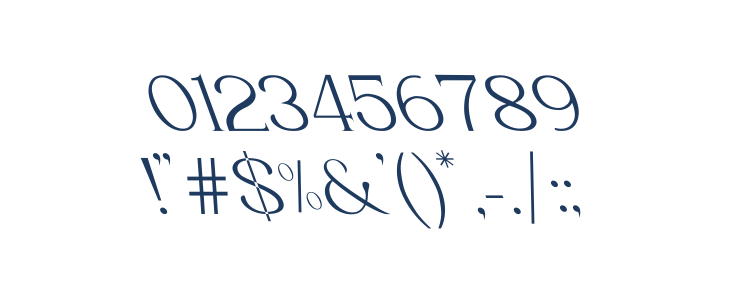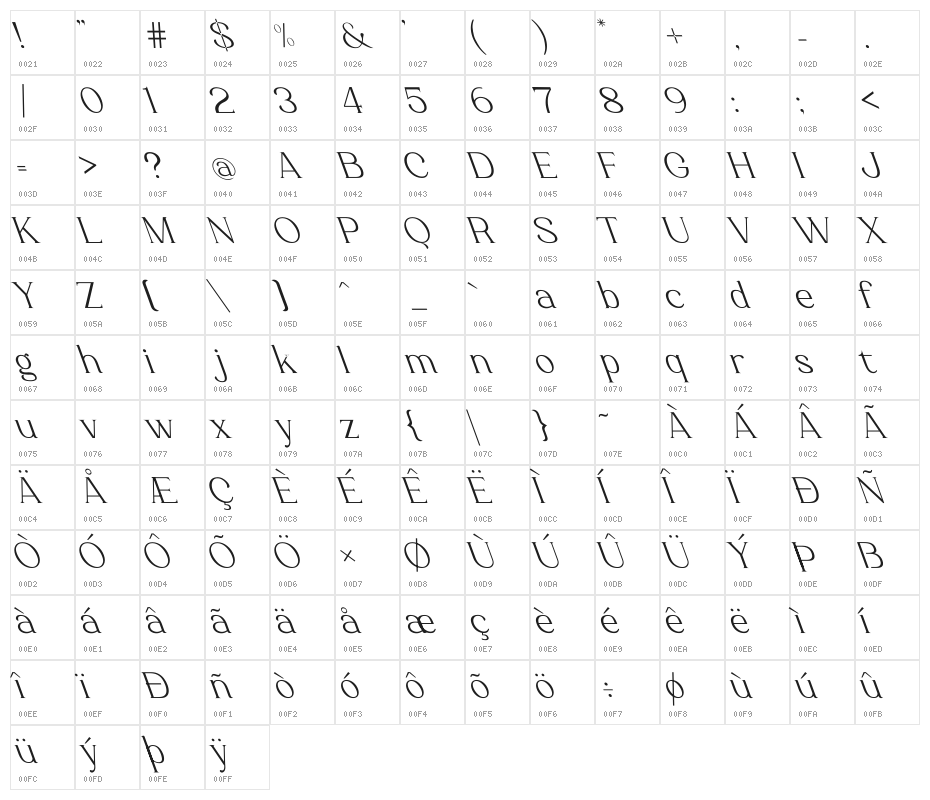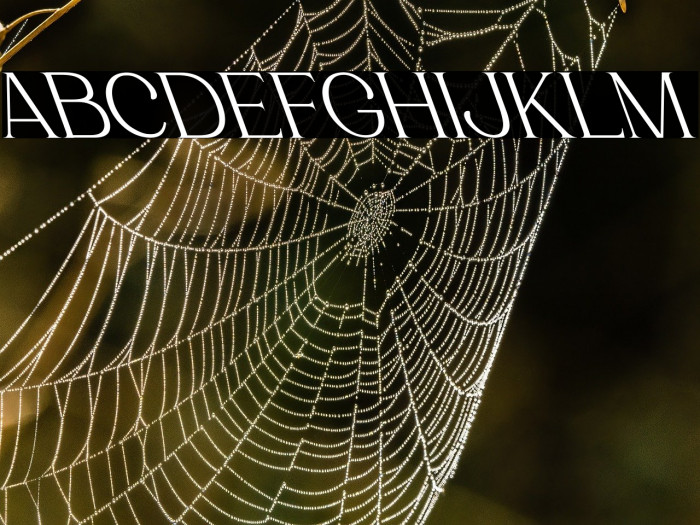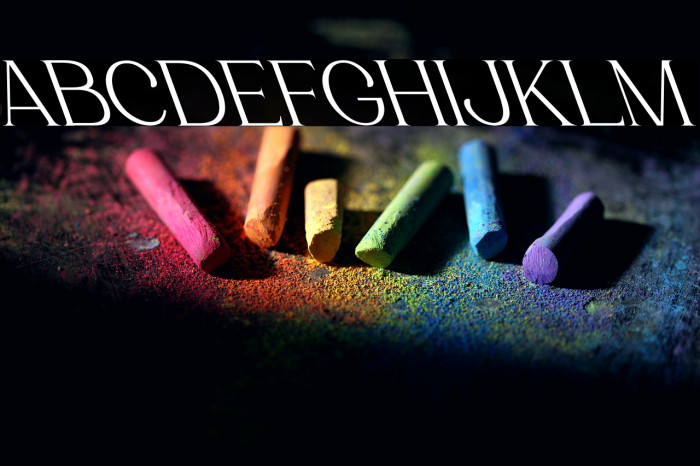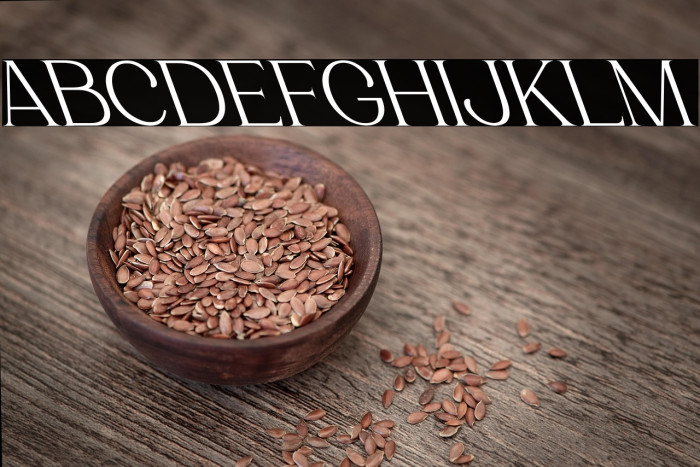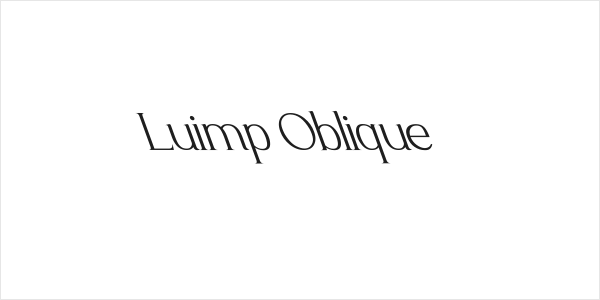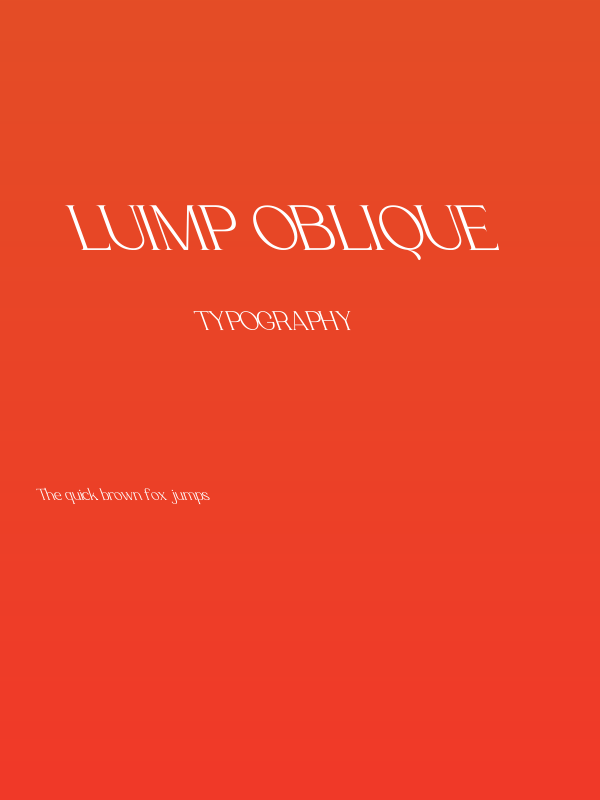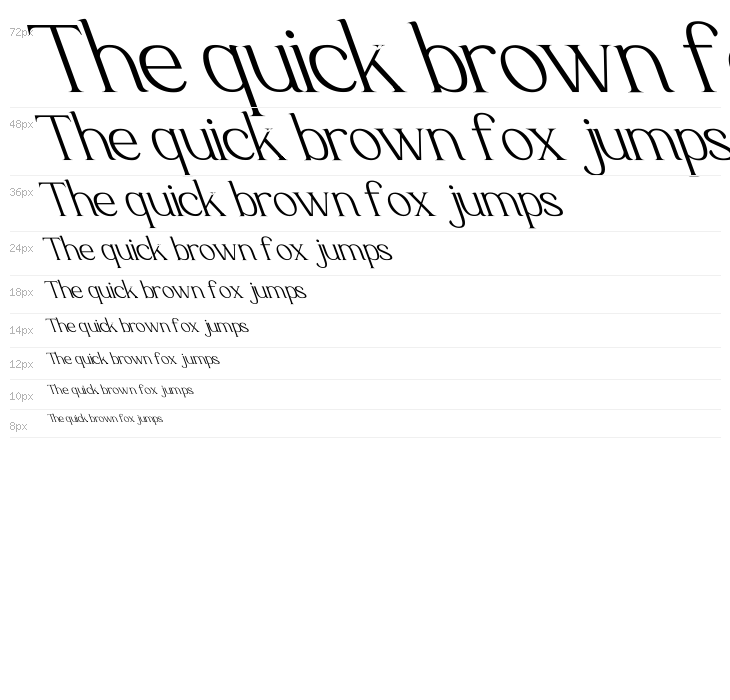
Luimp Oblique Font
Luimp Oblique Description
This font features an elegant and sophisticated design with a distinct oblique style. The characters are slightly slanted, giving a sense of motion and dynamism. The strokes are thin and consistent, providing a clean and modern appearance. The uppercase letters are tall and commanding, while the lowercase letters maintain a balanced and harmonious look. The numerals are clear and legible, matching the overall sleek aesthetic. Special characters are well-integrated, maintaining the font's refined style. This font is ideal for projects that require a touch of elegance and modernity.
| Proposed Projects | Ideal for branding, editorial design, fashion magazines, and luxury product packaging. |